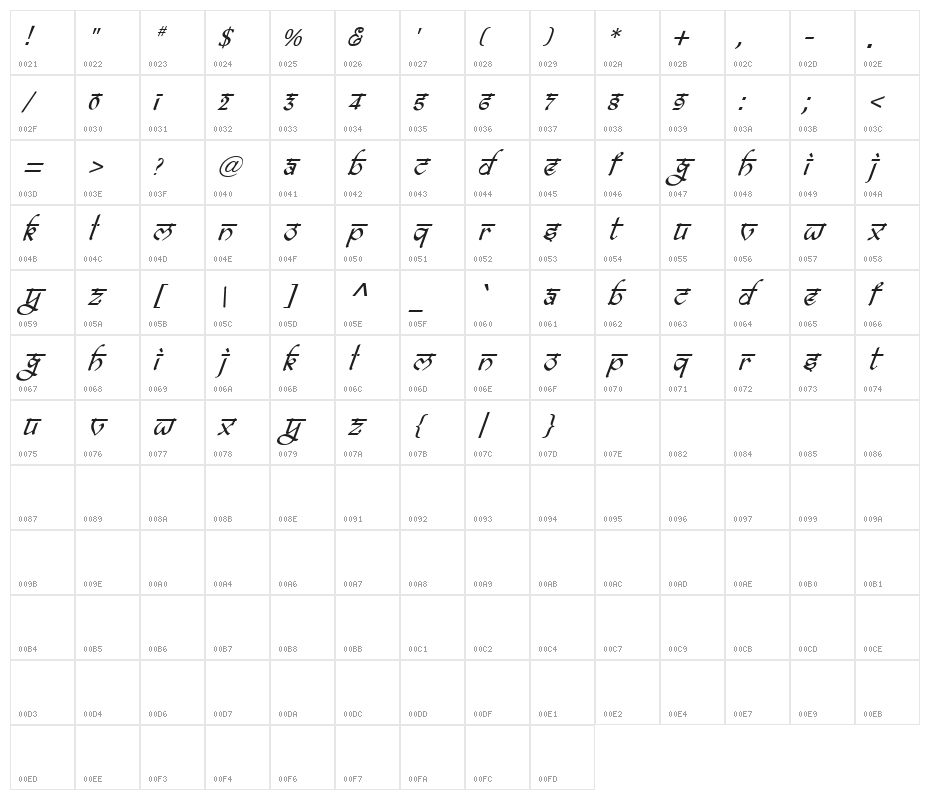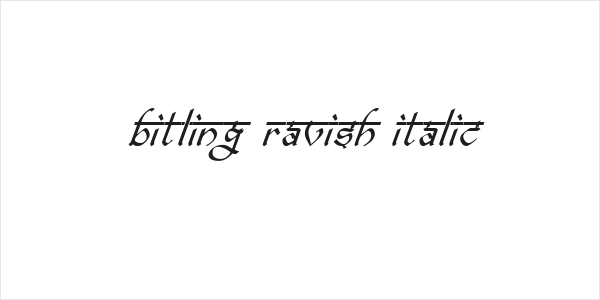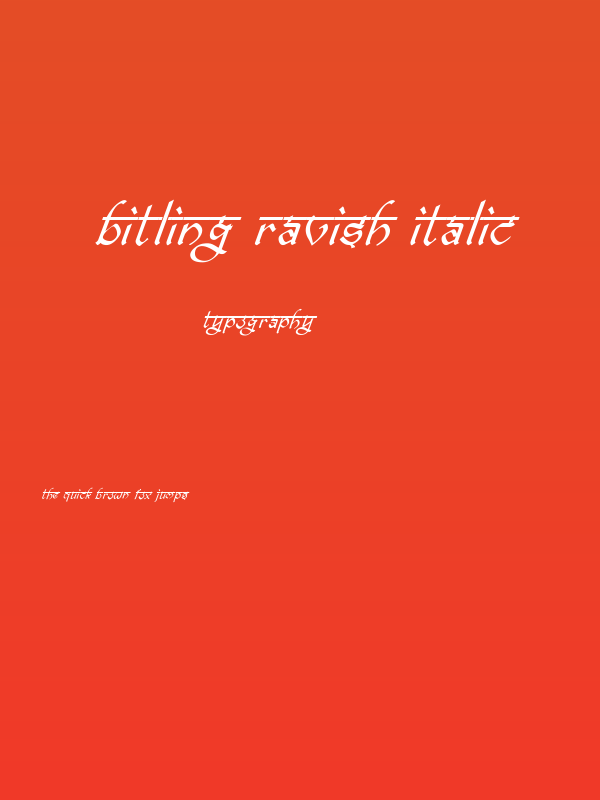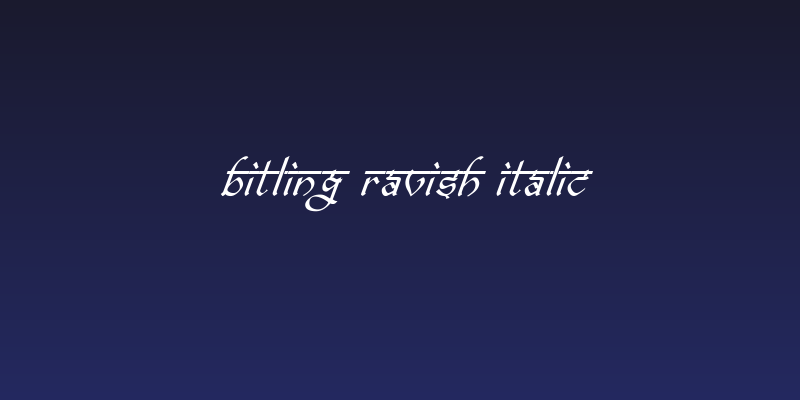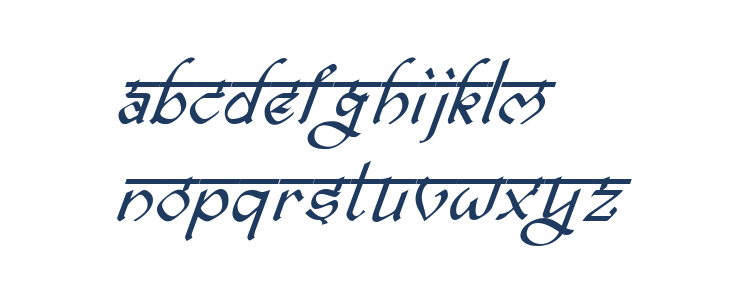
bitling ravish Italic Font
bitling ravish Italic Description
This font features a flowing, cursive style with elegant, sweeping lines and a distinct italic slant. The characters are interconnected, creating a seamless and sophisticated appearance. The strokes are moderately thick, providing a balanced contrast that enhances readability while maintaining a decorative flair. The uppercase letters exhibit a graceful form, while the lowercase letters are more compact, adding to the font's charm. The numerals are consistent with the overall style, ensuring uniformity across different types of text. Special characters are designed with the same attention to detail, making this font versatile for various applications.